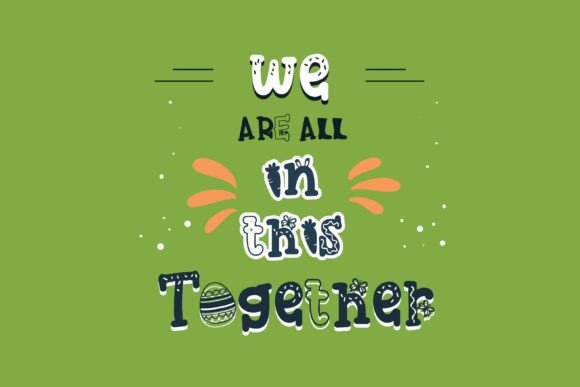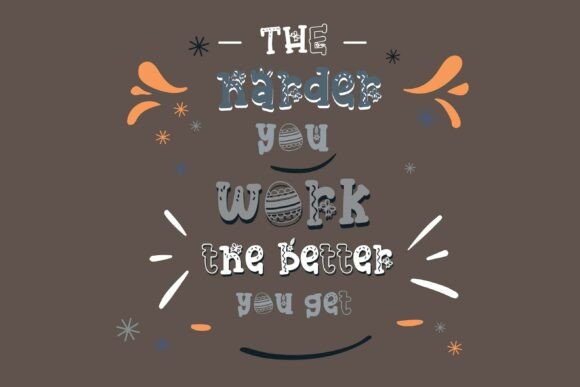
Easter Calories Galore Font
This hand-crafted font is a whimsical serif with adorable Easter imagery throughout.A hand-crafted font is a font that is designed to look like it was written by hand. It is often used for invitations, greeting cards, and other items. Handwritten fonts can be either formal or informal, and they can be used for a variety of purposes.